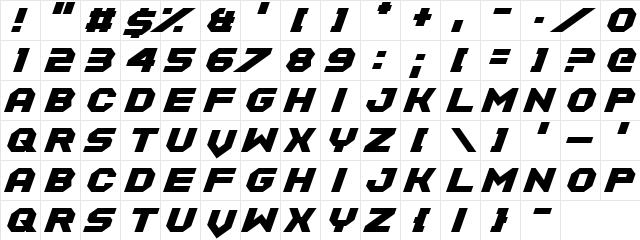
Equalize Regular
| Designer | NAL |
Design Context for Equalize Typeface
Equalize takes a measured approach to typography — its balanced proportions and neutral character make it a reliable workhorse for both digital and print work.